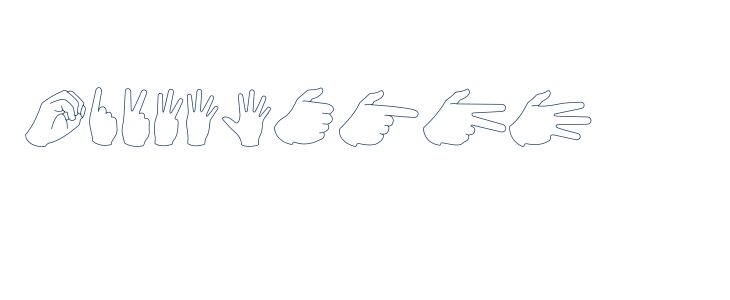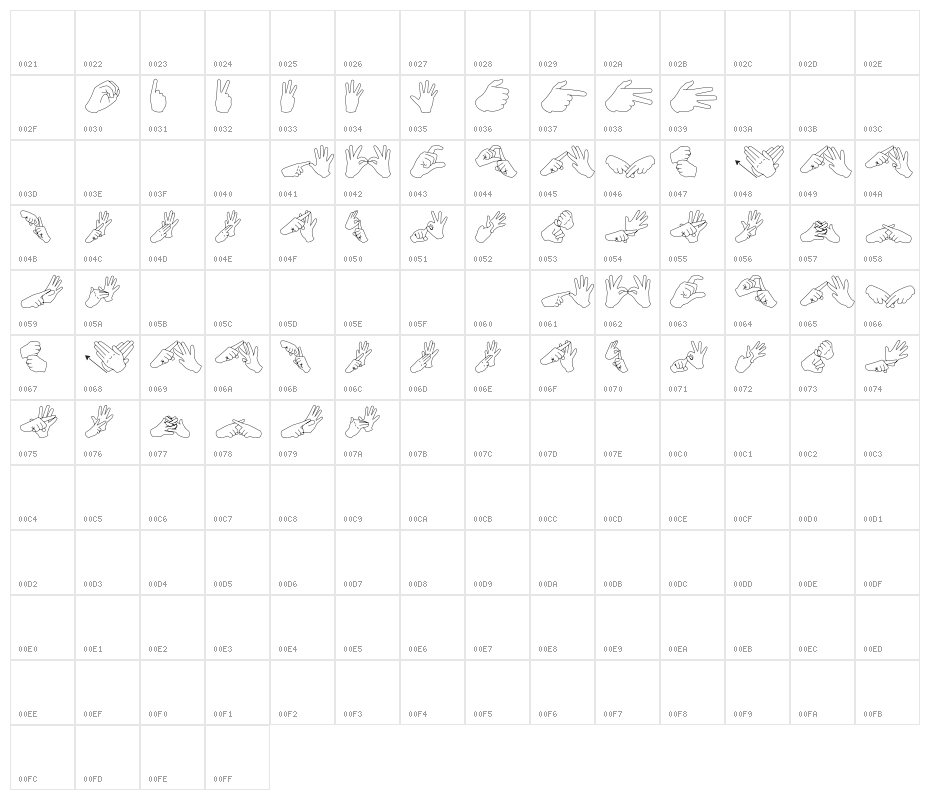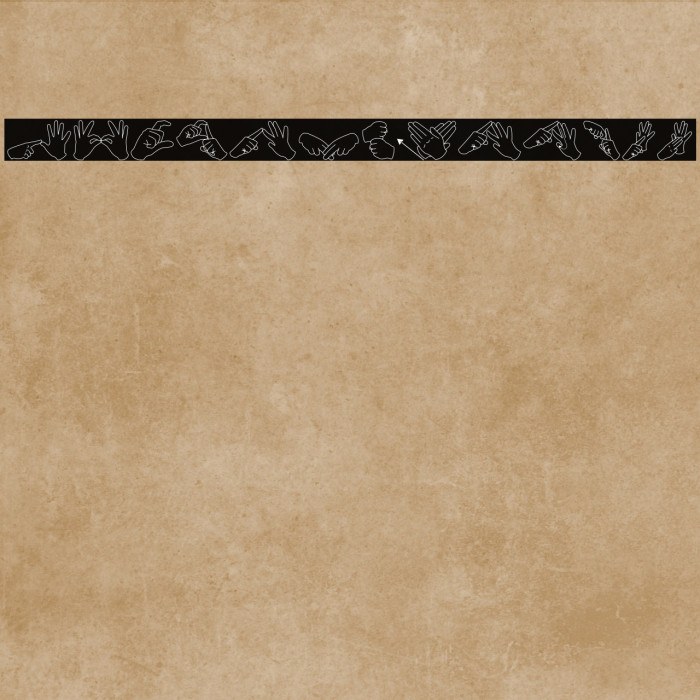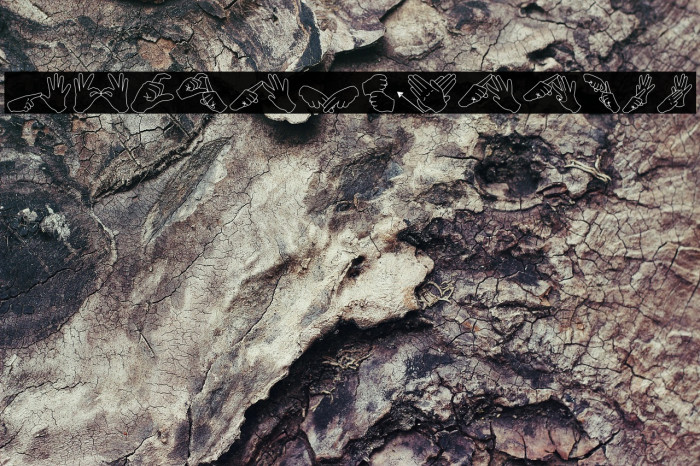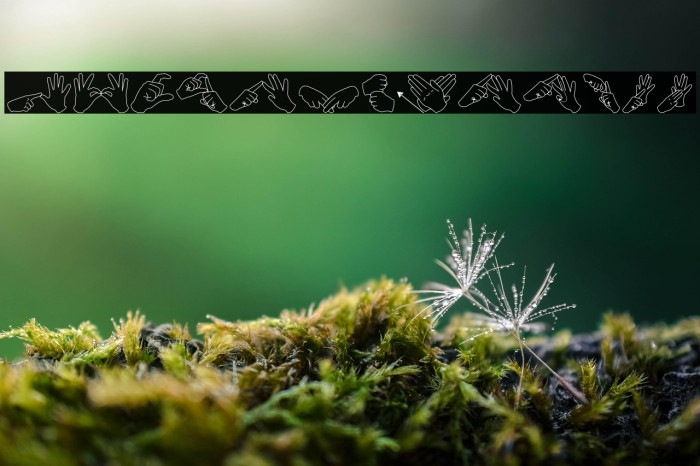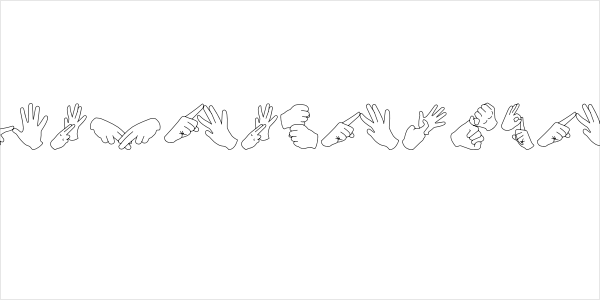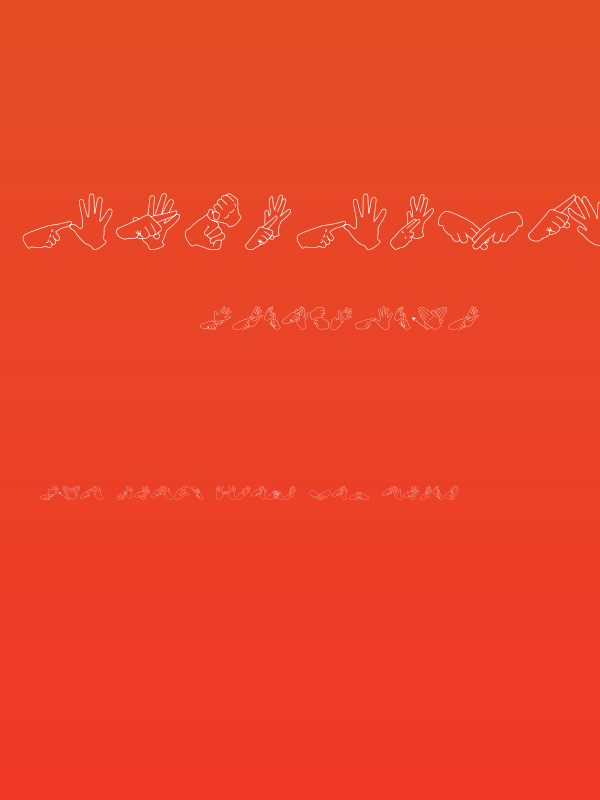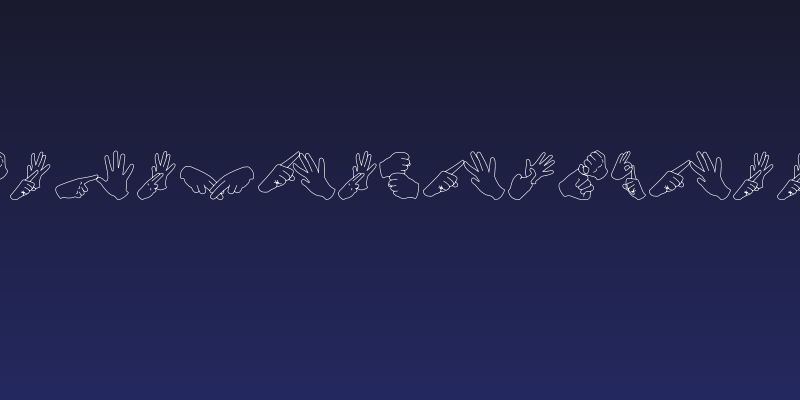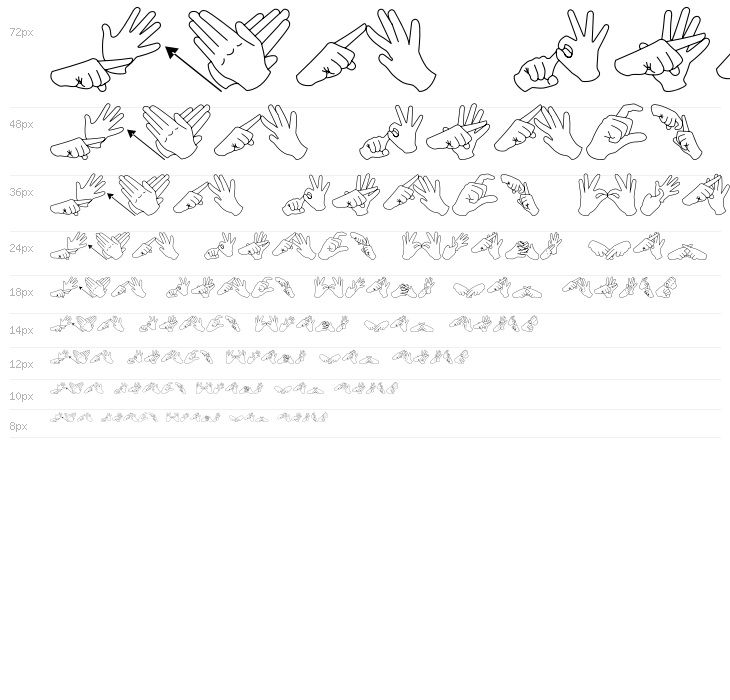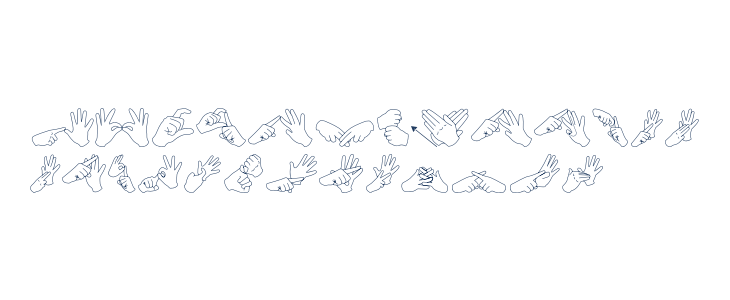
AuslanFingerSpelling Font
AuslanFingerSpelling Description
A unique illustrative font composed of simple, continuous line drawings of hands forming letters, numbers, and symbols in Auslan fingerspelling. Each character is represented by a distinct hand gesture, maintaining consistent line thickness and minimalistic style throughout.
| Overall Style | Decorative, Educational, Minimalist |
| Use Case | Display, Educational, Posters, Awareness materials |
| Proposed Projects | Educational materials for sign language, inclusive design projects, posters, awareness campaigns, children's books. |